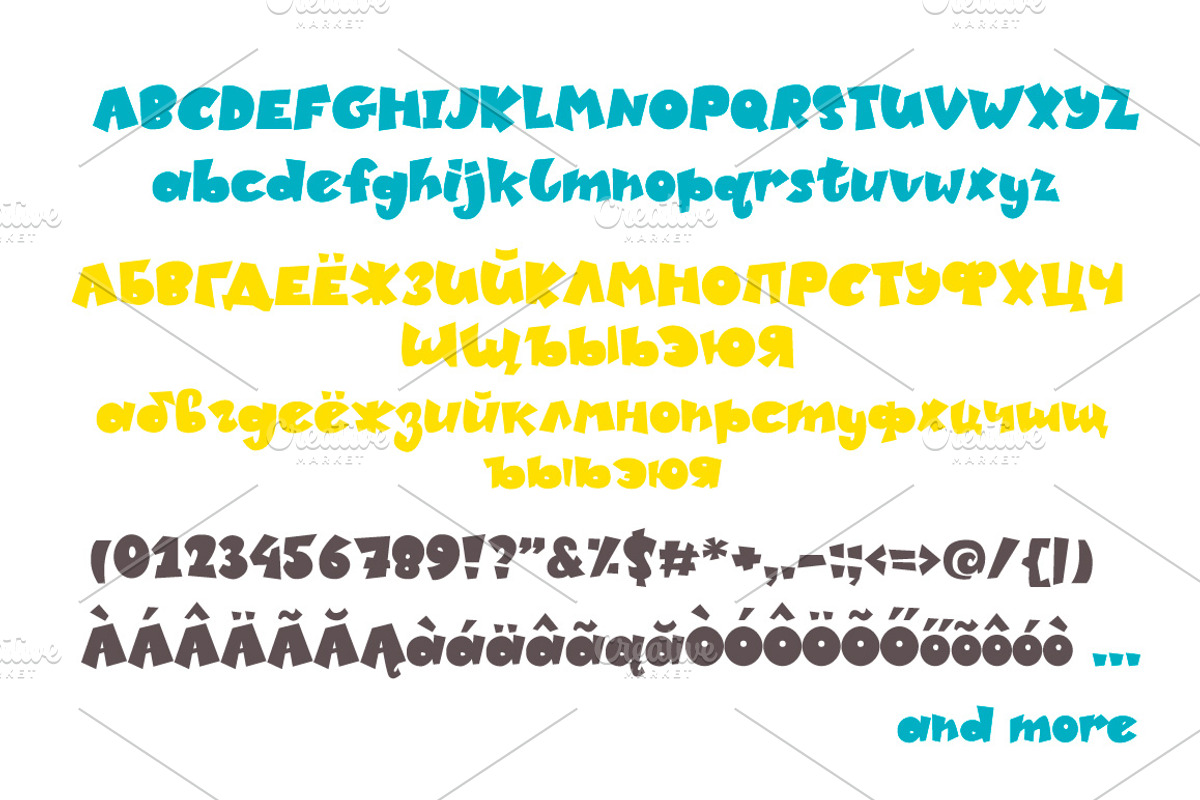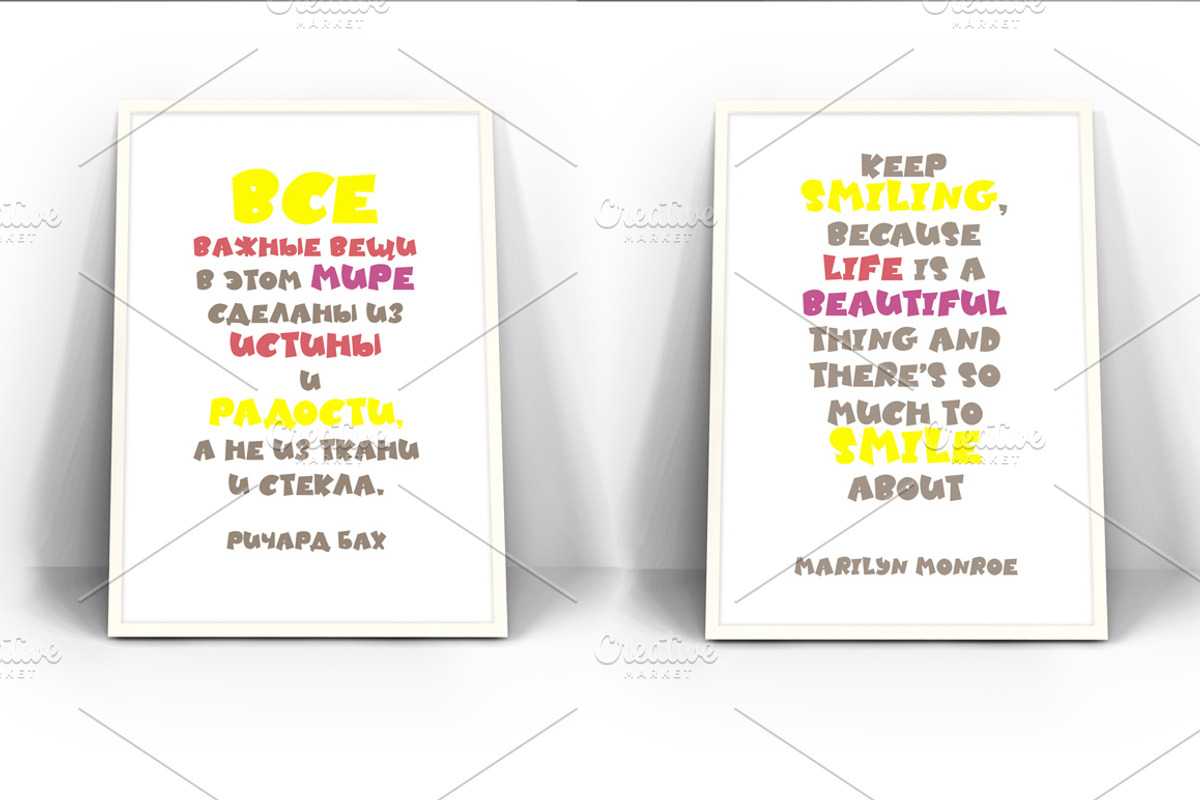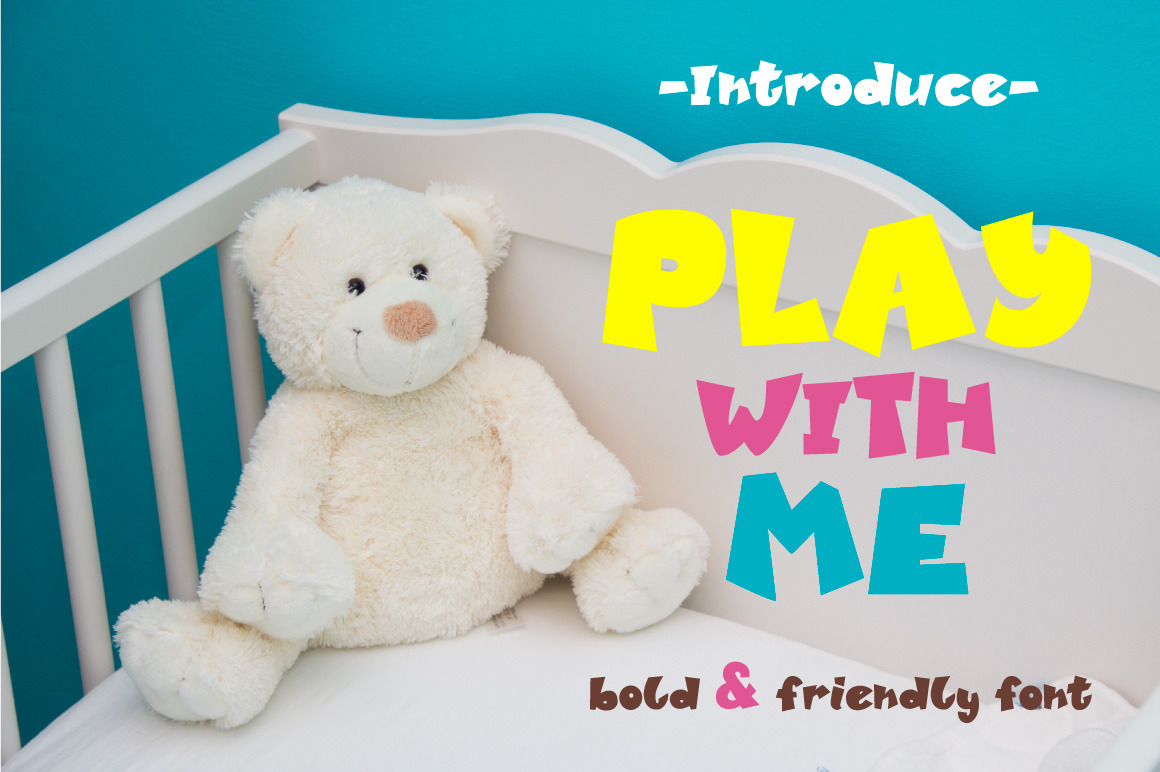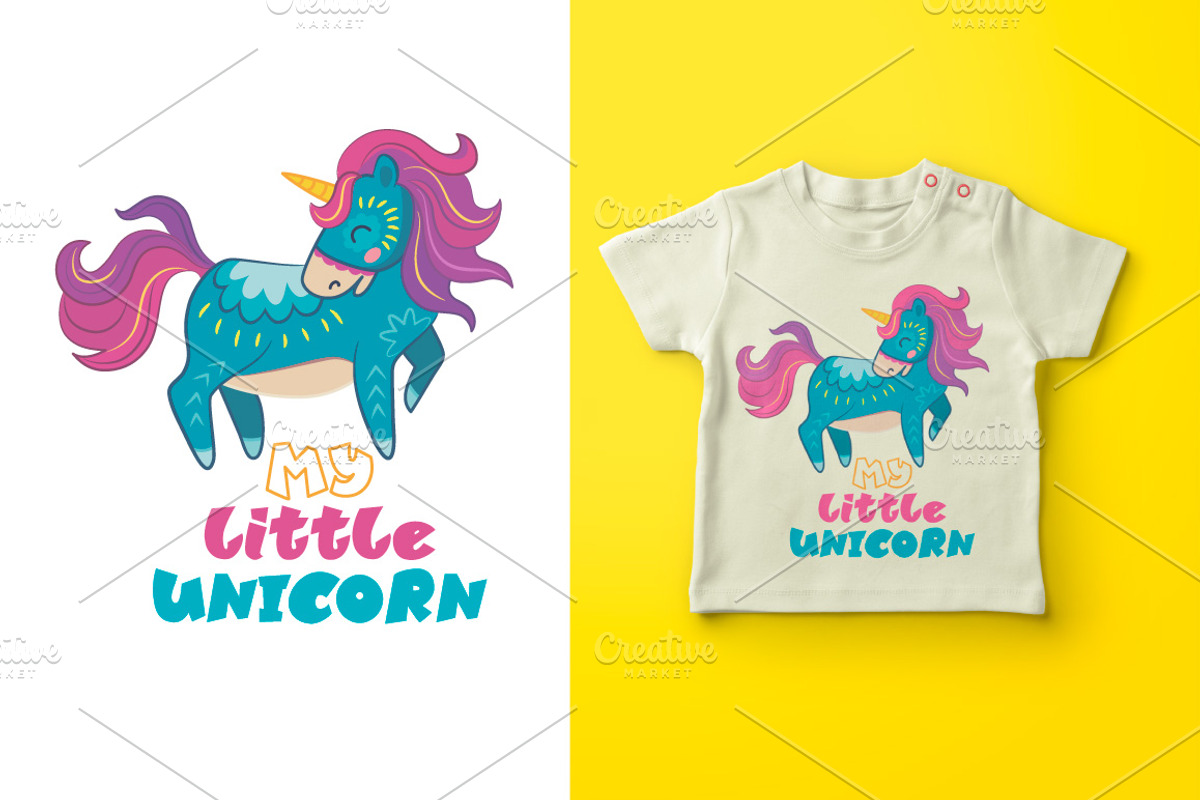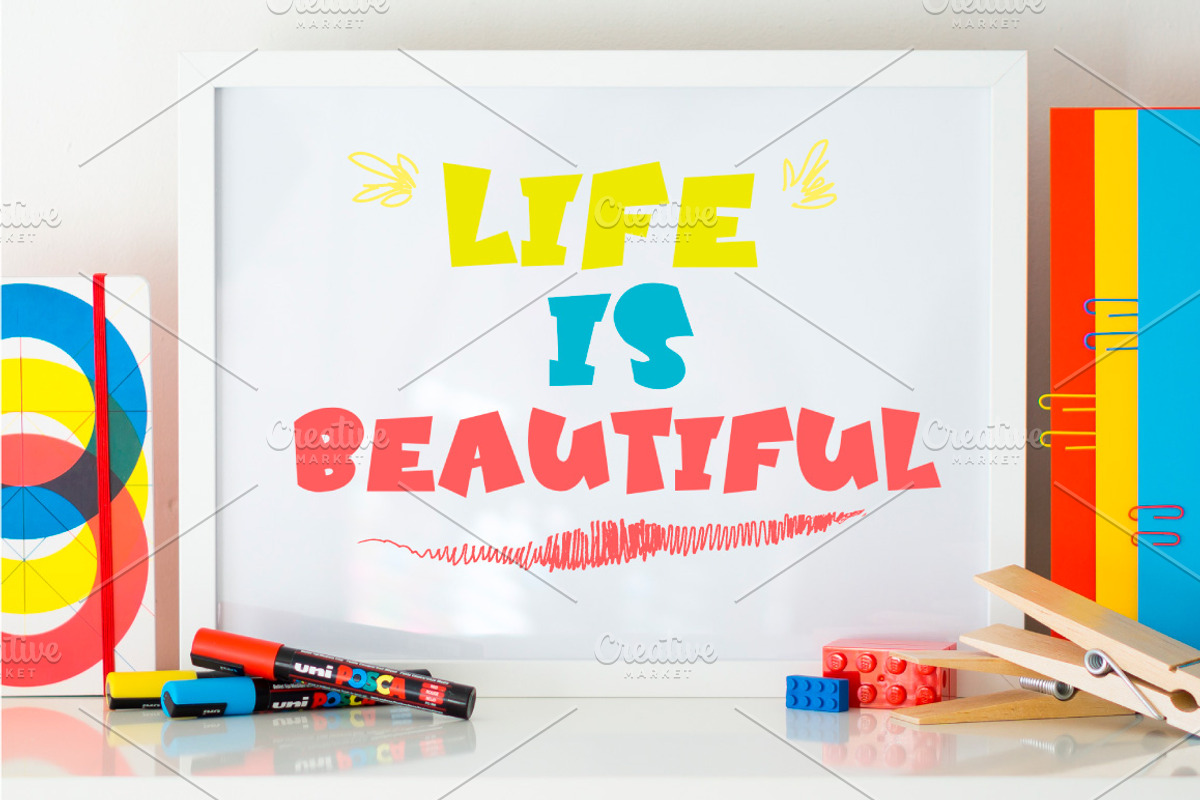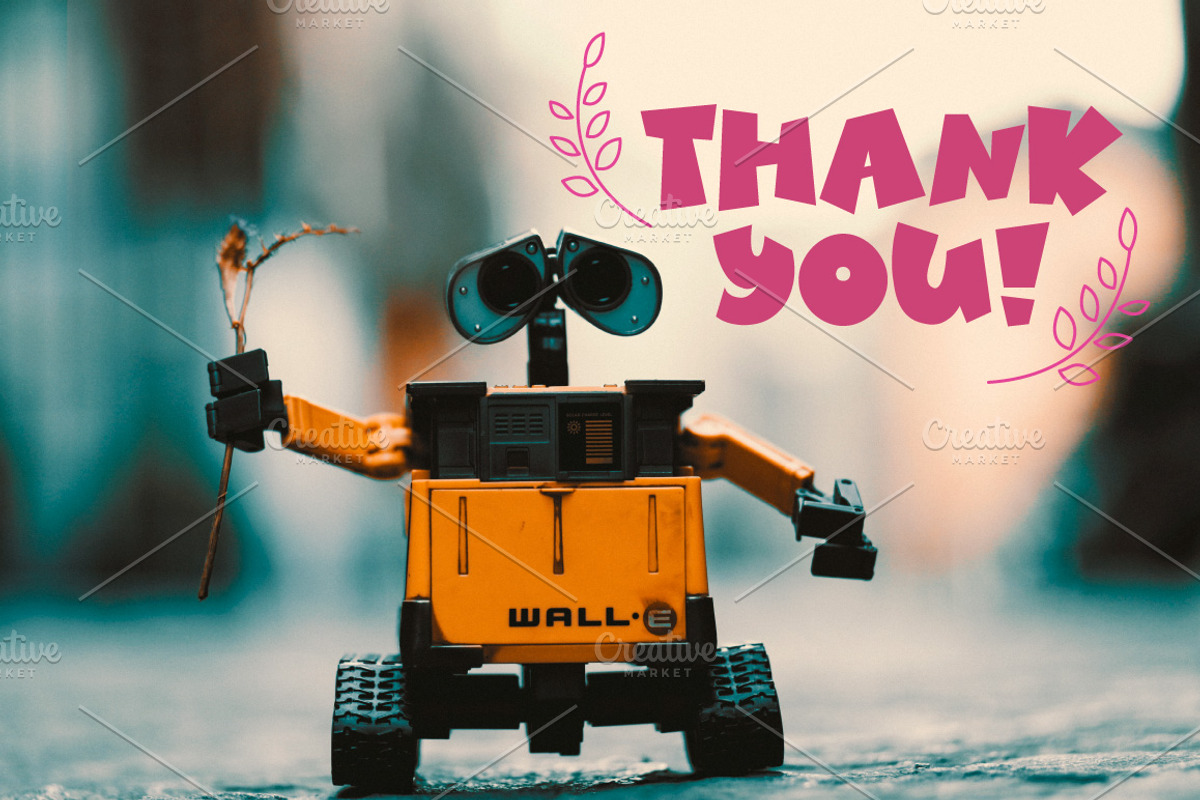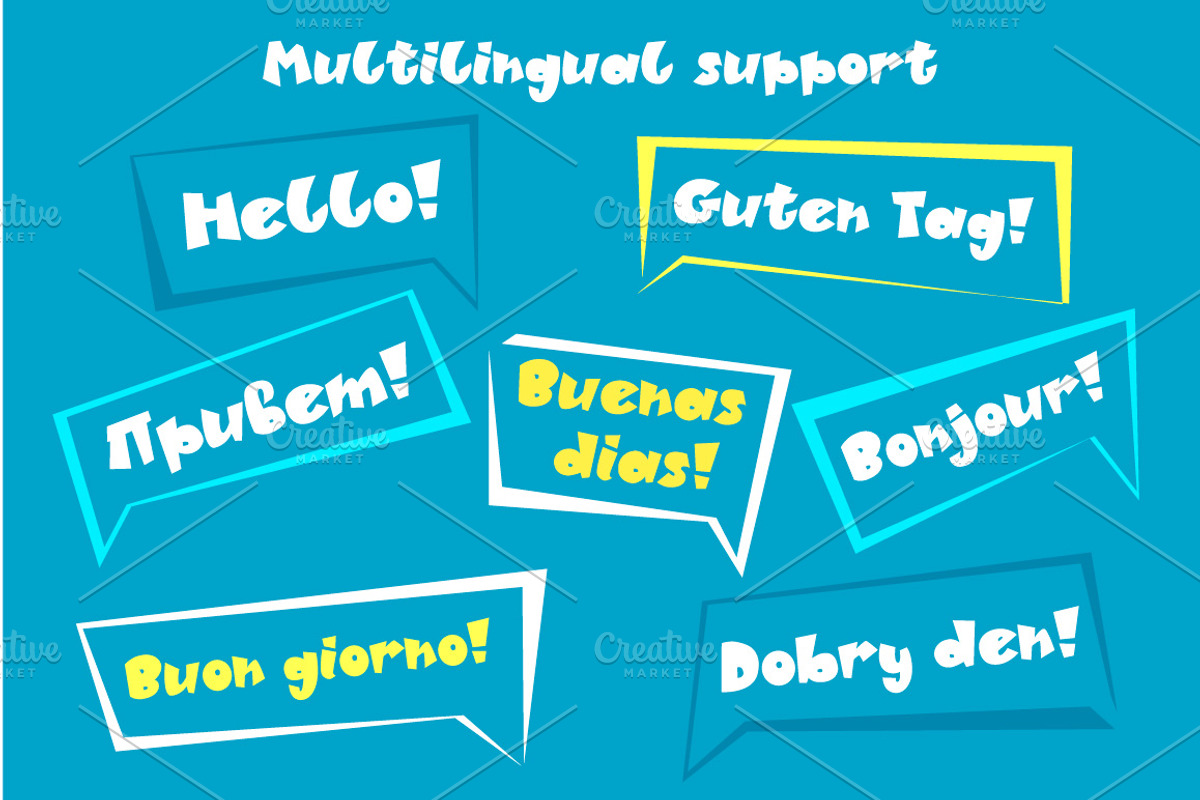
Play With Me - bold sans serif font
I want to introduce you a new font PLAY WITH ME. It is a bold sans serif font. Perfect for headers, invitations, save the dates, children projects, and so much more.
No special software is required to use PLAY WITH ME, just install it as you normally do on your system. Includes Uppercase Letters, Lowercase letters, Numbers, Punctuation and also Cyrillic & Central European languages support. You can type text in your language in the text box below and see if all the symbols are there. Let me know if there is anything missed.